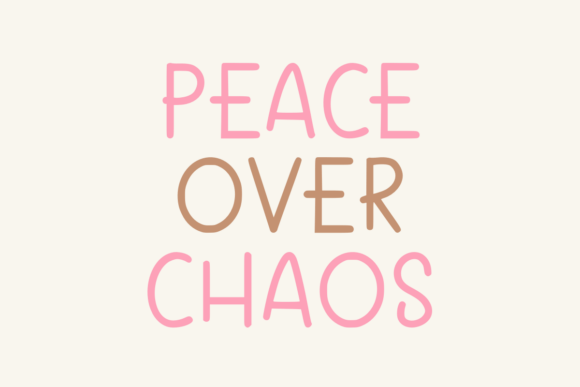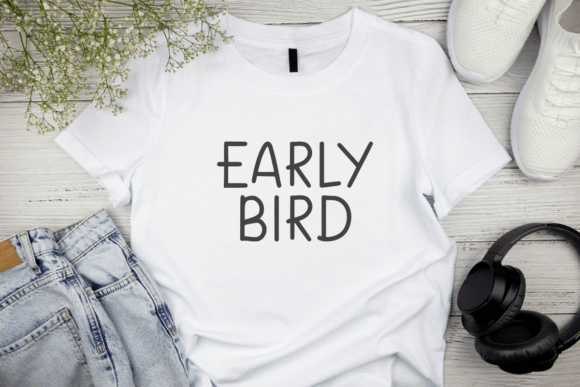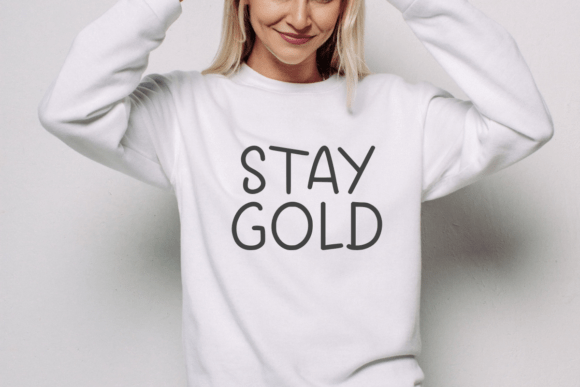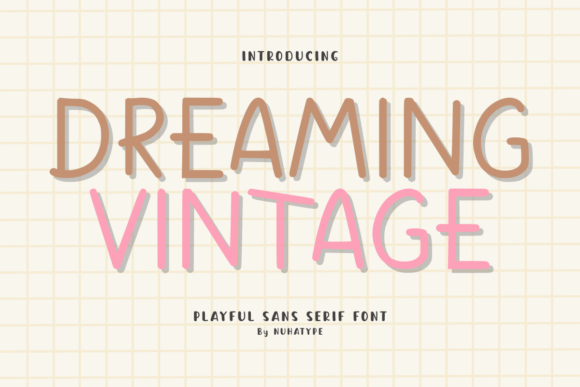
Introduction to Dreaming Vintage Font
Dreaming Vintage is a cute sans serif handwriting font designed with a soft, friendly, and natural look.
This font brings a warm handcrafted feeling that works beautifully for craft projects, planners, stickers, kids’ worksheets, classroom printables, and DIY designs Its simple strokes and smooth curves make it easy to cut using Cricut and Silhouette, and perfect for crafting moms who love adorable handwritten styles.